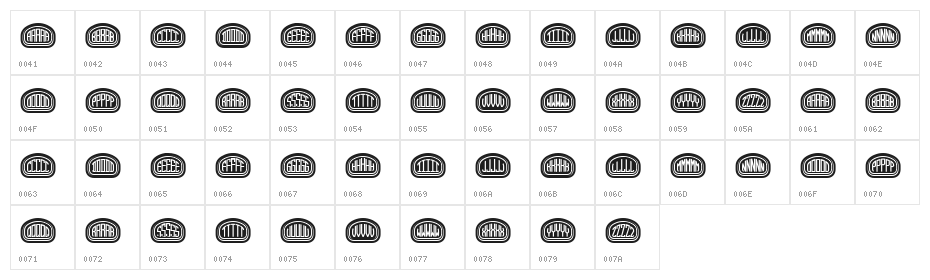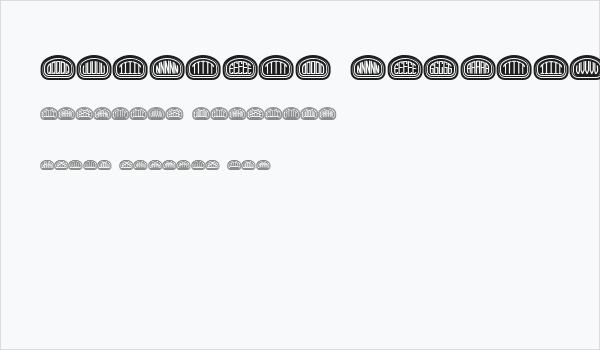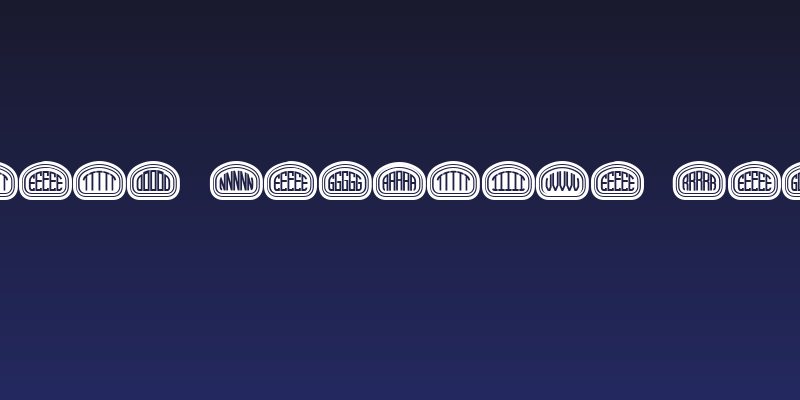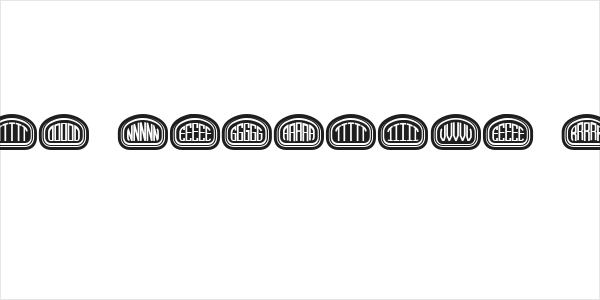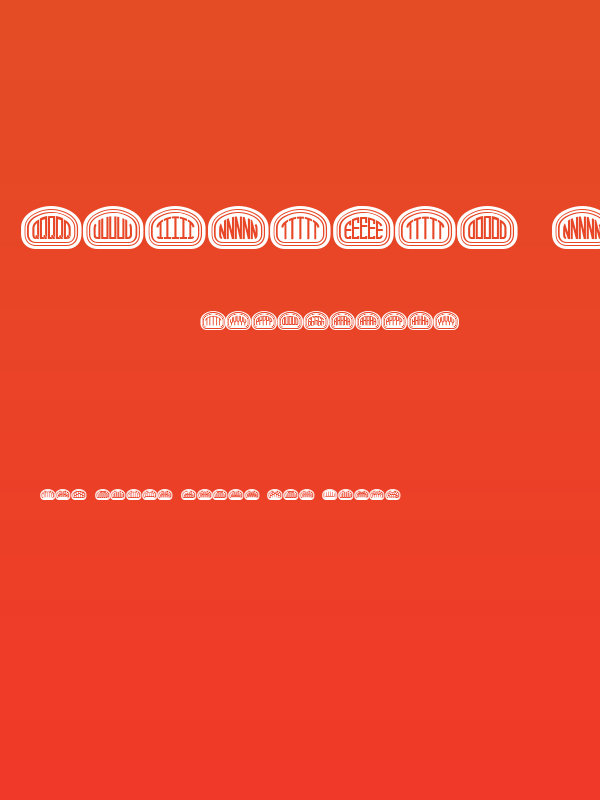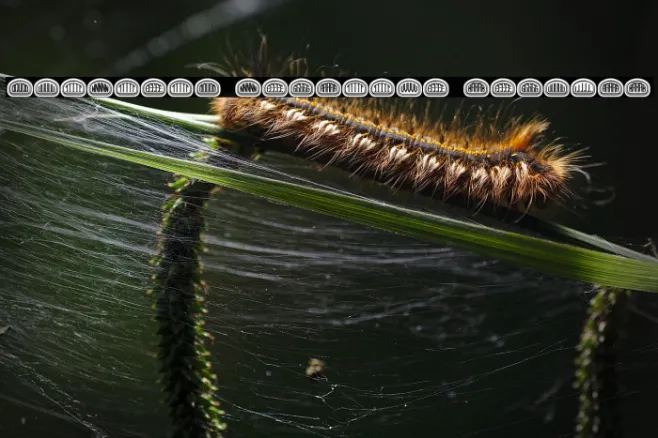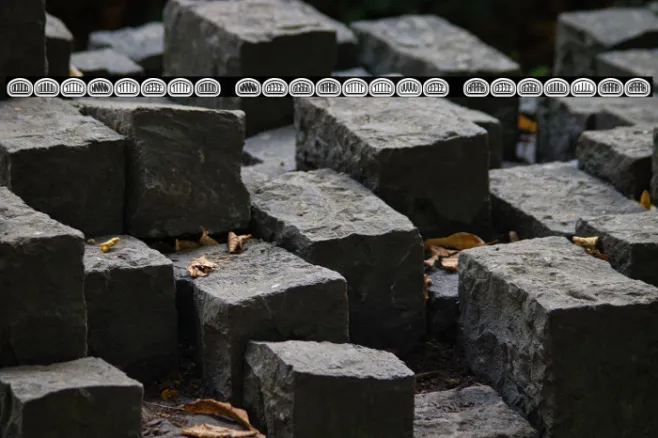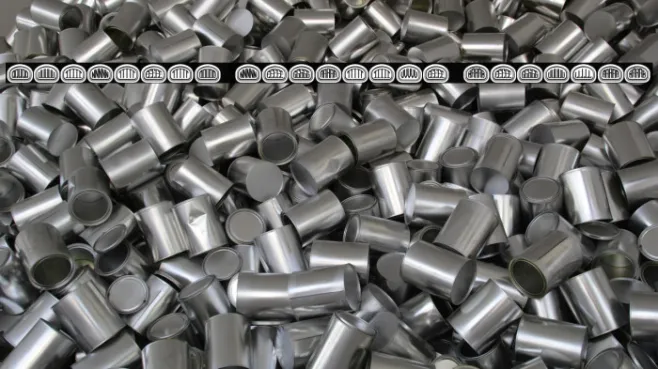
Quinteto Negative Regular Font
Quinteto Negative Regular Description
This font features a bold and playful design with rounded, capsule-like shapes enclosing each character. The letters are uppercase and lowercase, with a consistent thickness and a unique negative space effect that gives them a three-dimensional appearance. The style is reminiscent of retro or vintage signage, with a modern twist that makes it suitable for eye-catching designs. The characters are evenly spaced, and the overall look is both decorative and functional, making it ideal for projects that require a distinctive and memorable typeface.
| Overall Style | Retro, Modern |
| Proposed Projects | Ideal for branding, posters, album covers, and any design that requires a standout, retro-modern aesthetic. |